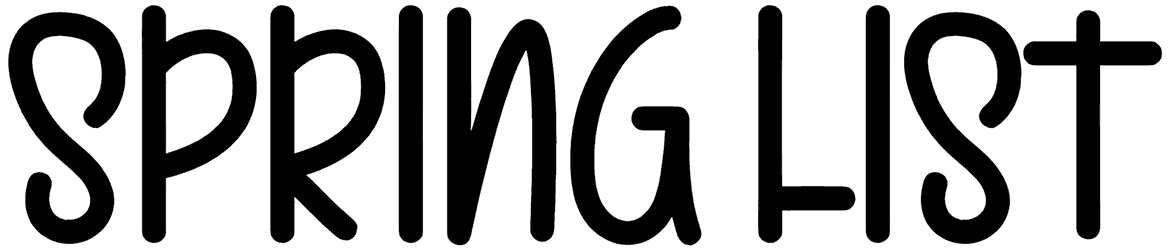
Spring List Font
What better way is there to greet spring than with the sweetest designs of your entire career, made only possible thanks to Spring List? It feels so natural with its lovely handwriting that it just calls for a project with the theme of nature to take it to the next level in a click or so.
In the meantime, there’s something silly going on with the letters of this handwritten font, being asymmetrical and childlike, like it’s messing with you already.